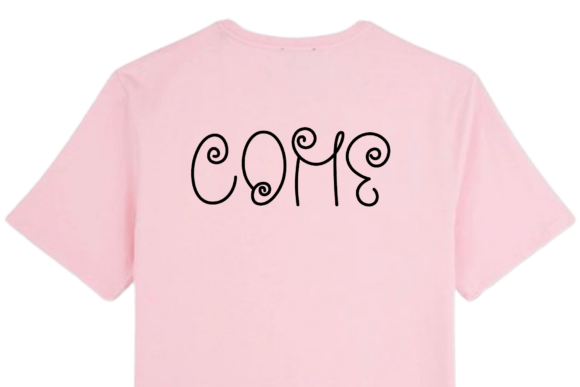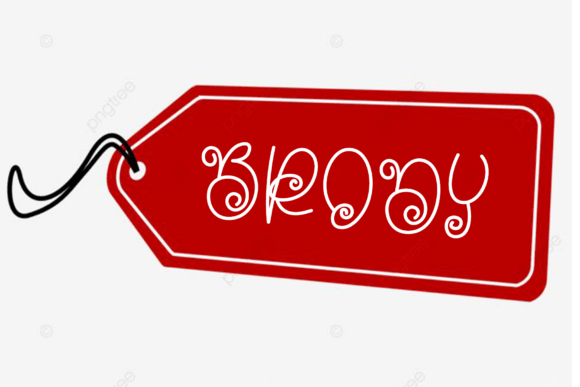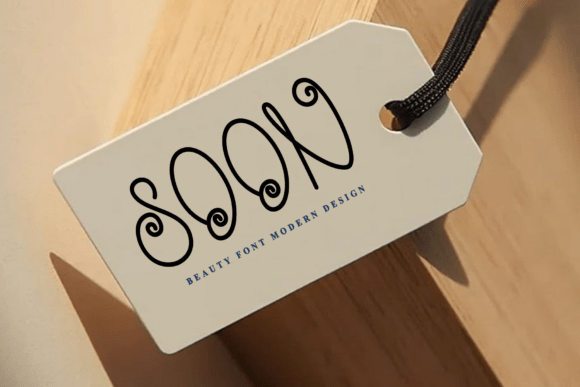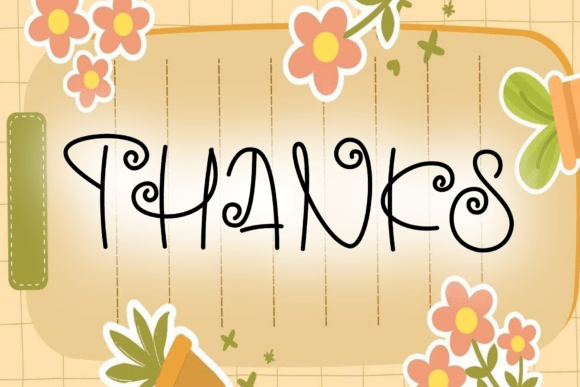
Introduction to Mood Lazy Font
Have you ever stared at a blank canvas, searching for the perfect font to bring your creative project to life? The struggle is real, but it’s a problem that many designers face. For me, it’s that moment of hesitation before a design takes shape – the moment when the right font can make all the difference.
Enter the Mood Lazy Font, a stunning handwritten font that’s sure to elevate any design. With its high-quality, unique touch, this font is a valuable resource for designers looking to create eye-catching logos, branding, and quotes. Its versatility and timeless charm make it a must-have for any design project, and the best part? It’s available for free download with a transparent background, making it a seamless addition to any design.
Whether you’re working on a personal project or a client’s design, the Mood Lazy Font is sure to inspire creativity and help you achieve your design goals.
Mood Lazy Font
- High-quality, professional design ideal for creative projects and design resources.
- Comes with a transparent background, allowing for seamless integration into various design environments.
- Includes a range of font sizes and resolutions, including 300 DPI and 600 DPI, for optimal print quality.
- Unique, hand-drawn design elements add a personal touch to any project or design resource.
- Perfect for use in digital and print media, including logos, branding materials, and marketing materials.
Honest Review: Mood Lazy Font
I recently had the chance to try out the Mood Lazy Font, and I must say it’s been a game-changer for my creative projects. As a designer, I’m always on the lookout for high-quality fonts that can elevate my designs and make them stand out.
One of the things I love about the Mood Lazy Font is its versatility. It’s perfect for a wide range of creative projects, from branding and marketing materials to digital art and even web design. The font is incredibly easy to use, and the transparent background makes it super easy to work with.
Here are some things that work well for me:
- ✨ High-quality design that looks great on any screen
- ✨ Easy to use and customize
- ✨ Perfect for creative projects that require a unique touch
However, I do have to mention a few limitations:
- ⚠️ Limited character set, which can be a bit restrictive for some projects
- ⚠️ Not suitable for very small text sizes, as it can become difficult to read
Overall, I’m really impressed with the Mood Lazy Font. It’s a fantastic design resource that’s perfect for any creative project. With its high-quality design, easy-to-use interface, and transparent background, it’s a must-have for any designer looking to elevate their work.
Mood Lazy Font
When using Mood Lazy Font in PowerPoint or Word, start by creating a new presentation or document. Select the Mood Lazy Font from the font library and use it to create headings, titles, and body text. This free download font is perfect for adding a touch of sophistication to your presentations and documents. To get the most out of the font, use it in combination with other design elements and adjust the font size and style accordingly.
The Mood Lazy Font is perfect for a variety of creative projects, including branding, marketing materials, and editorial designs. Its high-quality design and transparent background feature make it an ideal design resource for designers and non-designers alike.